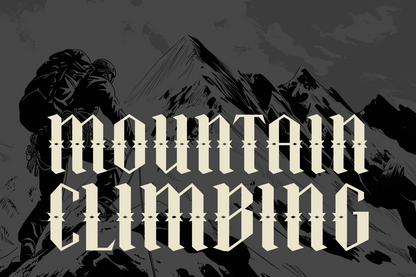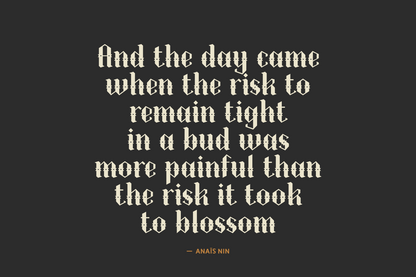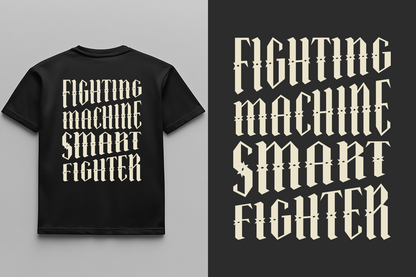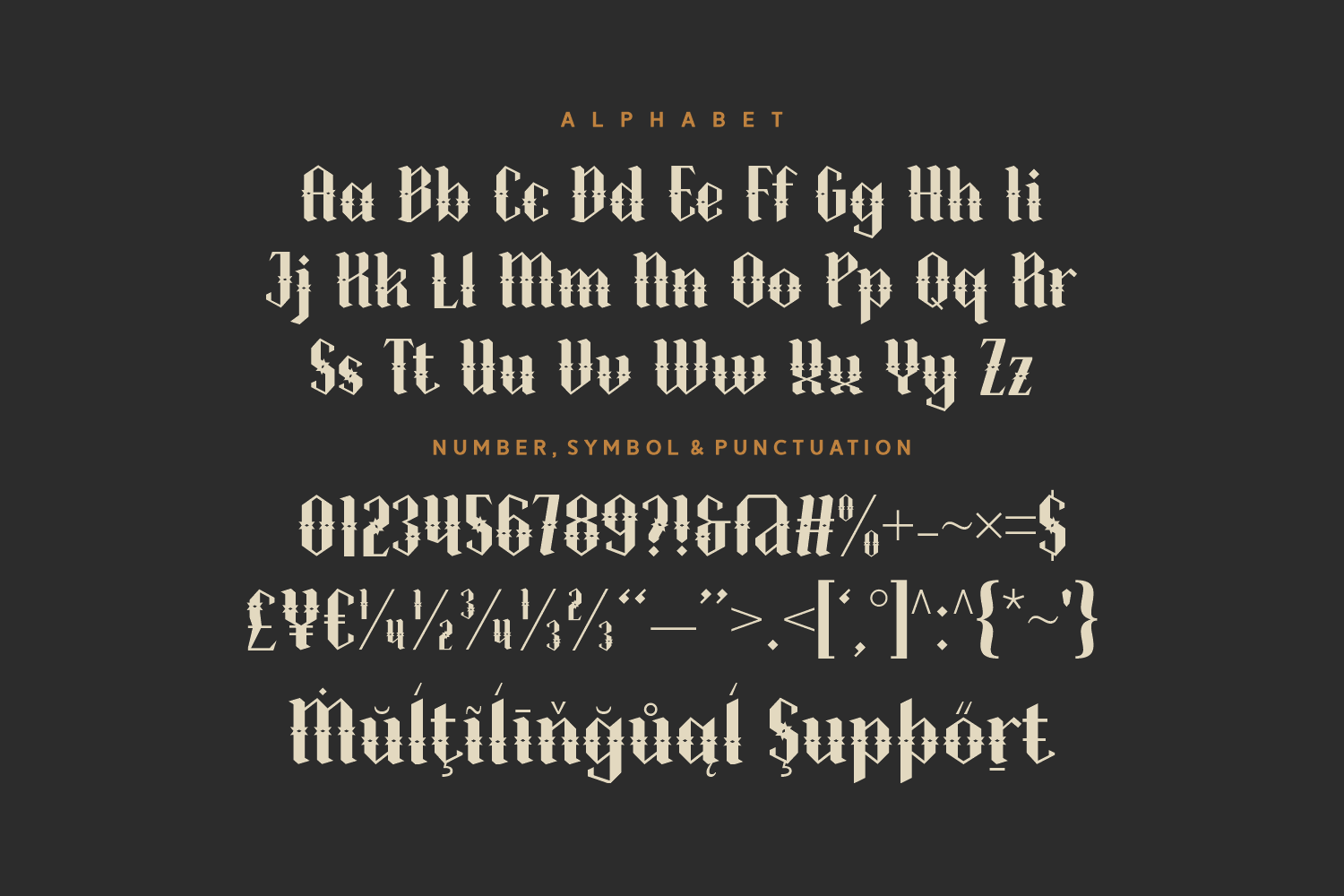
Quite Loyal is a bold and structured blackletter font featuring decorative star-like punctuations. Ideal for vintage branding, band logos, or dark-themed editorial projects, it delivers a strong visual presence with a loyal gothic essence.